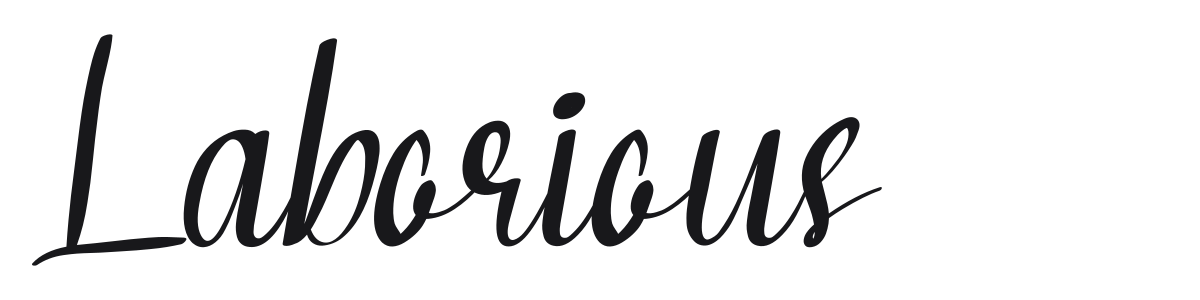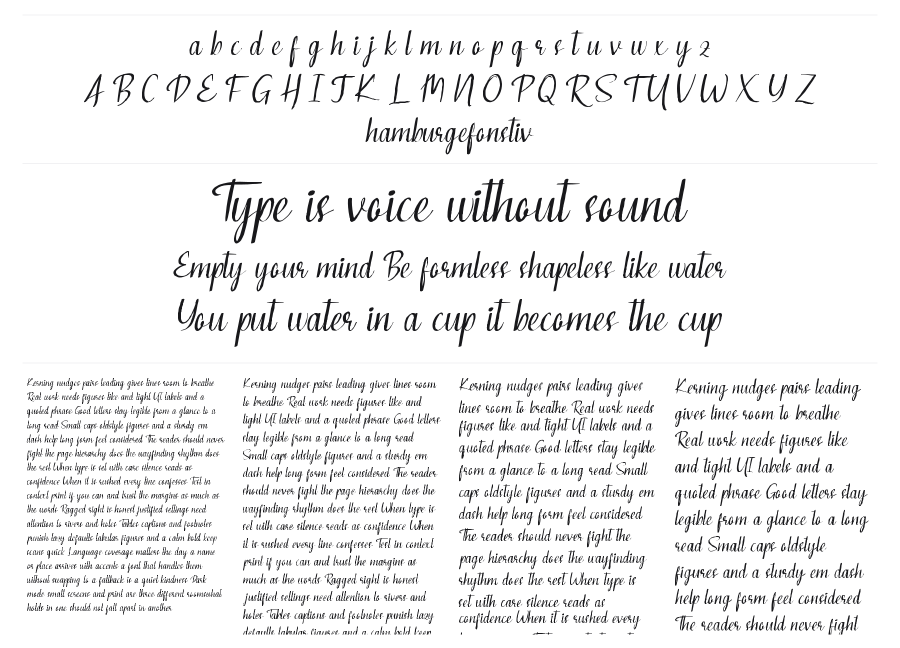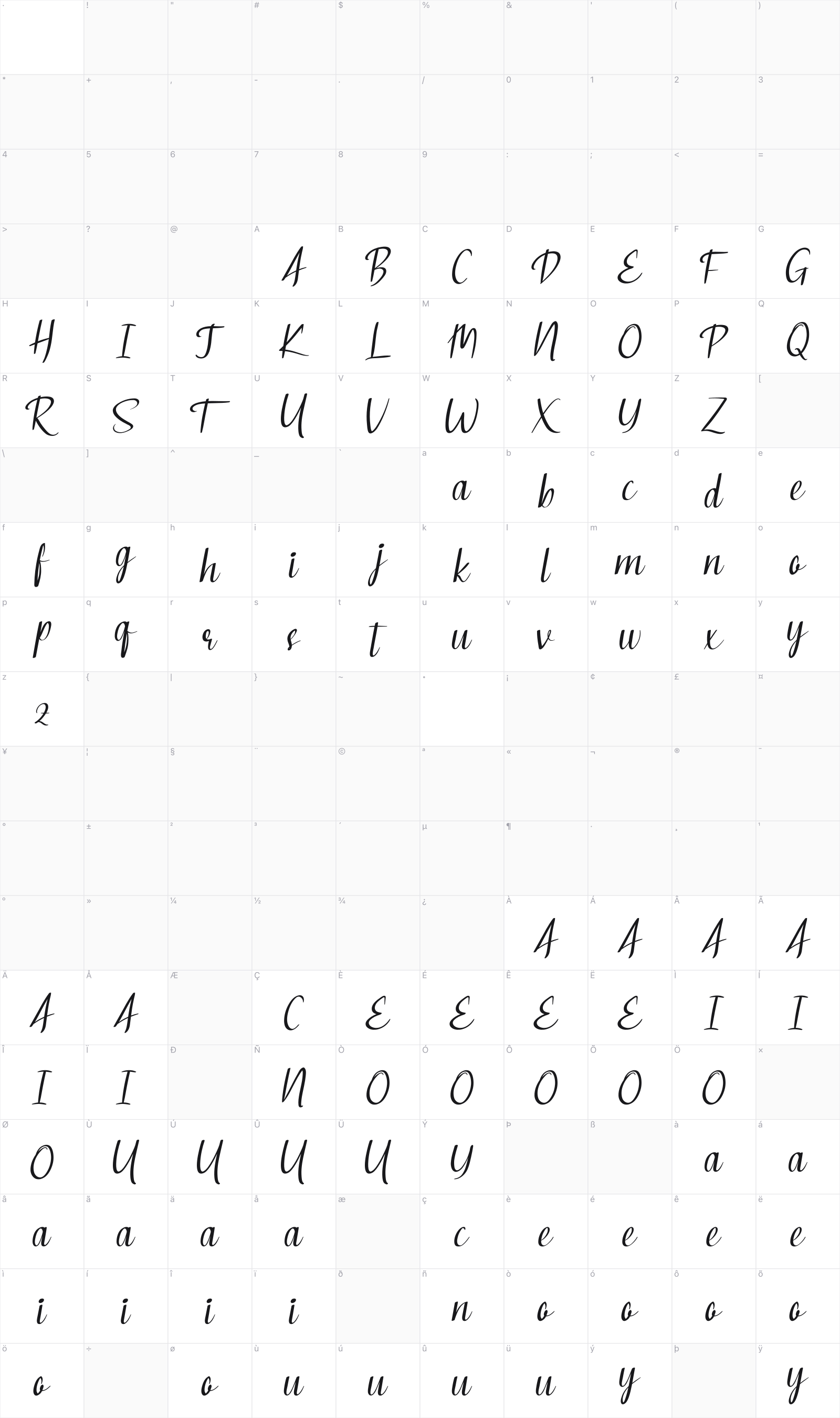
Laborious
Laborious is a casual calligraphic script with flowing connected strokes and a lively rhythmic bounce. The moderate contrast between thick stems and hairline joins gives it the feel of a confident pen hand without the stiffness of formal calligraphy. It works well at large sizes for logos, invitations, and packaging where personality matters.